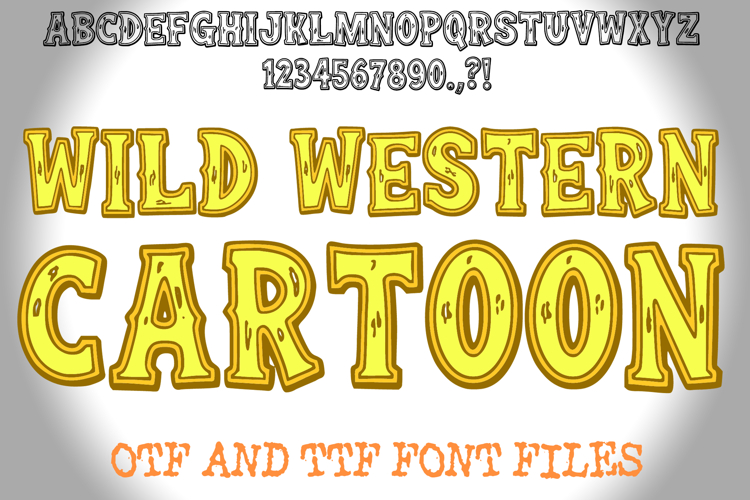
Wild Western Cartoon Alphabet Lettering ABC Cowboy Text Font
Wild Western Cartoon is a playful frontier headline face with chunky slab-like serifs, bouncy proportions, and hand-drawn wobble.
Irregular outlines and woodgrain nicks give each glyph a comic signboard feel, while broad bowls and open counters keep words readable at poster scale. The caps-led rhythm lands punchy and upbeat; set it tight for badges and stickers or layer solid and outline looks for classic rodeo signage.
Perfect for party invites, game titles, and branding that wants Wild West energy with kid-friendly charm.
A unique cowboy style font where you can create your own words and colour them to your vision!